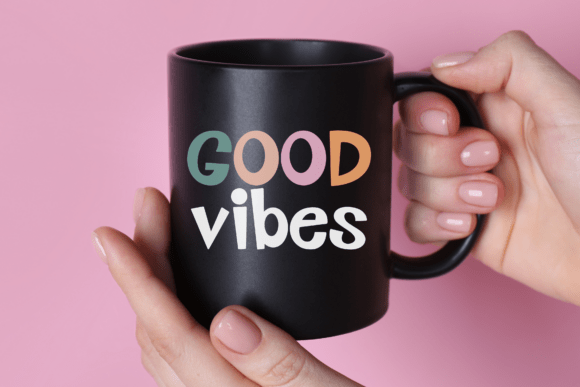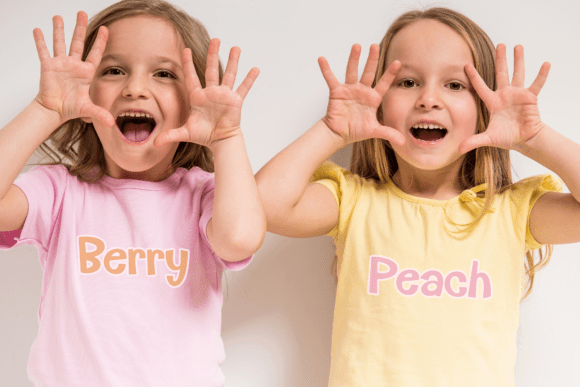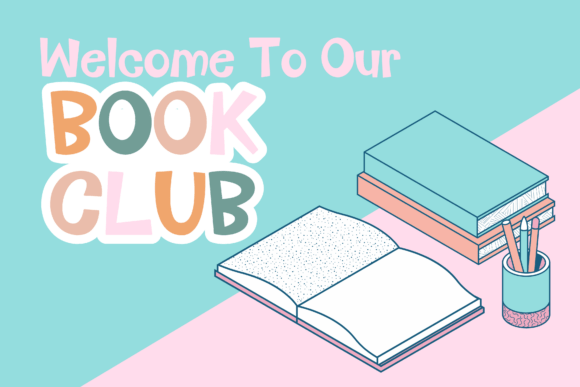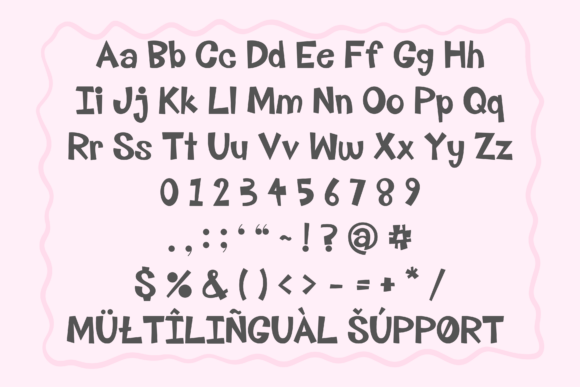
Introduction to Aspire Jump Font
Add a burst of energy to your designs with Aspire Jump, a playful and lively display font designed to make your projects stand out with a joyful vibe.
Featuring a bouncy, irregular structure that captures a sense of movement, this typeface is perfect for childrenโ€™s books, fun posters, social media graphics, and creative branding Aspire Jump comes with a full set of uppercase and lowercase letters, numbers, and punctuation, along with complete multilingual support to bring a cheerful, hand-crafted touch to any design.